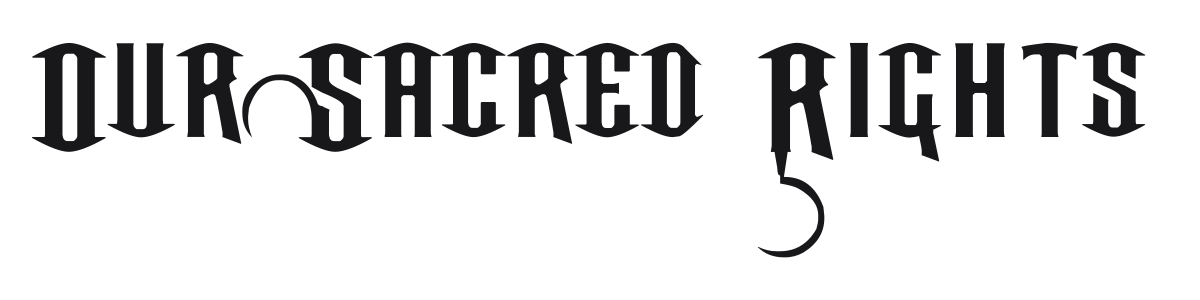
Our Sacred Rights
Our Sacred Rights is a bold gothic display font built on the visual language of blackletter and heavy metal typography. Sharp spire-like terminals, compressed proportions, and strong stroke contrast give it a monumental, almost architectural weight. It reads with authority at large sizes and carries an unmistakable edge suited to music, protest, and countercultural design.